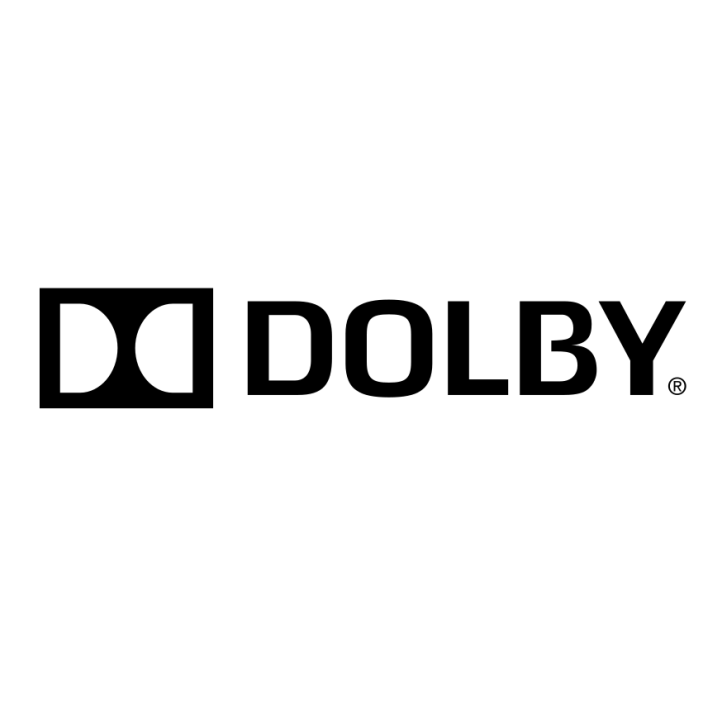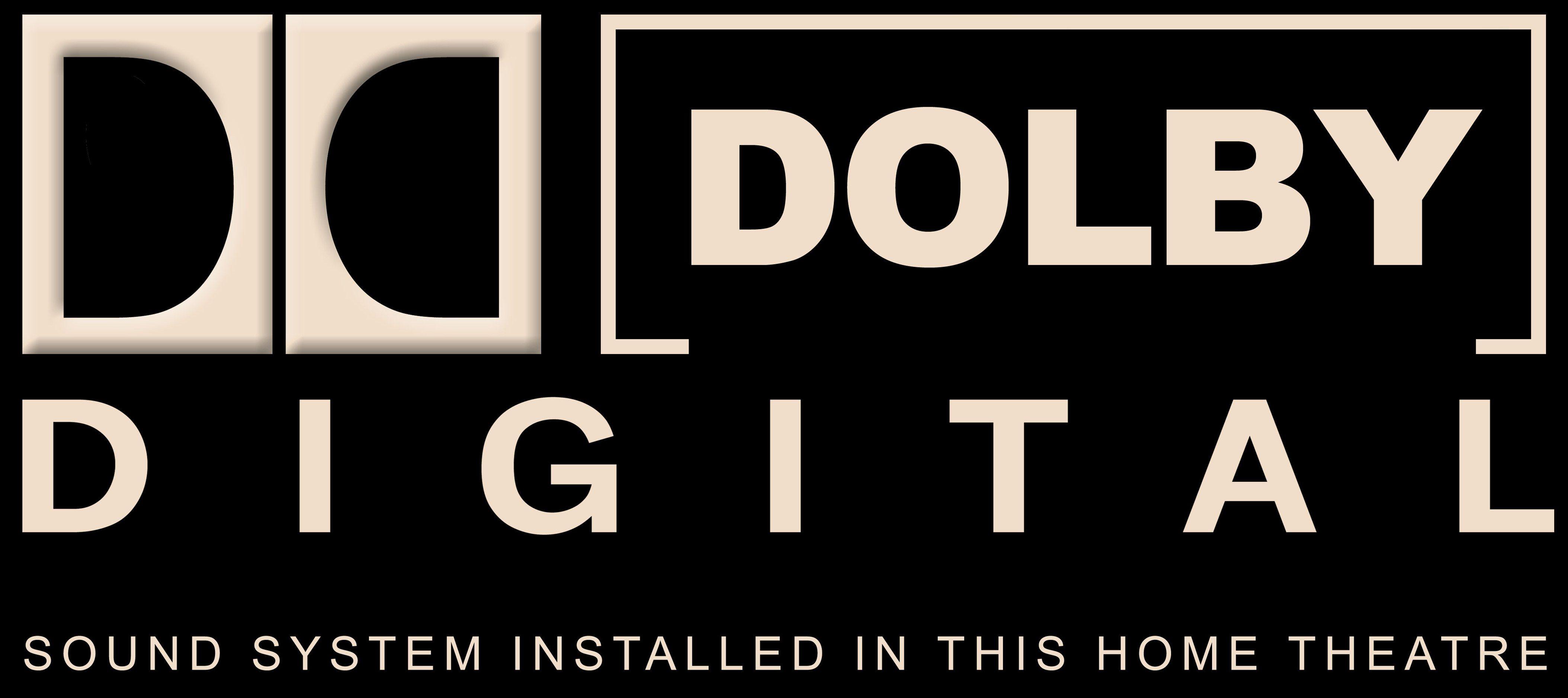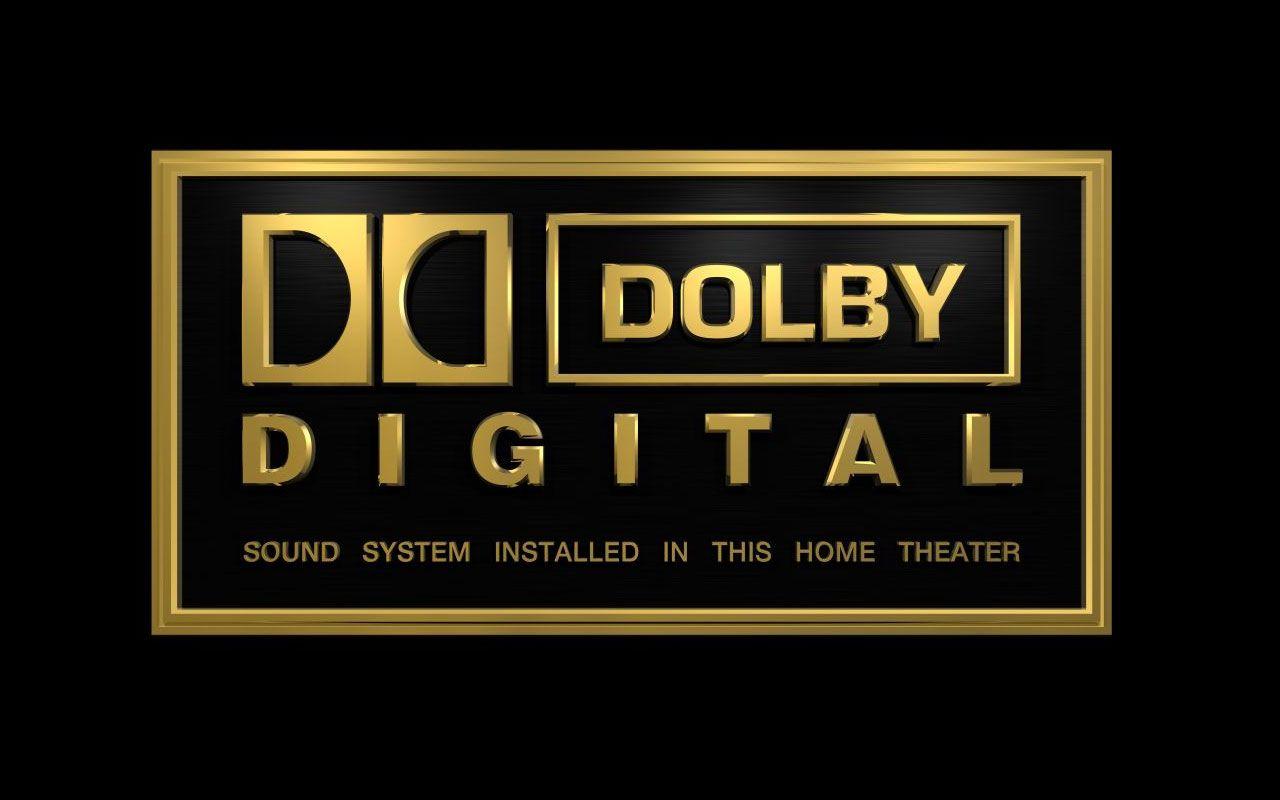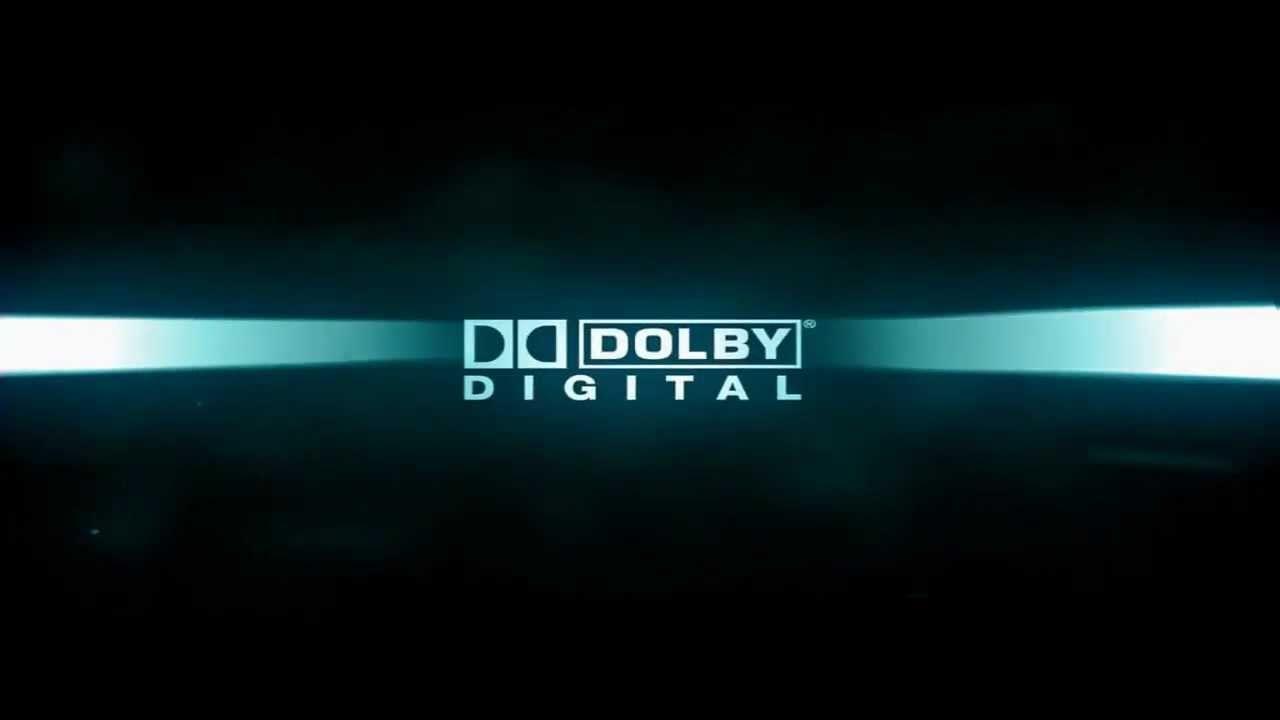
What Is The Dolby Digital Font . Dolby labs is a global leader in audio and video technologies. In 2007, the double d got. How could sansation possibly be used for the dolby logo? 124k subscribers in the identifythisfont community. Show us a sample and we'll try to find the font. The monochrome color palette emphasizes style. Visualization symbolically reflecting the imprinting of text on perforated film represents the dolby sound system. The closest font we can find for the dolby logo is gustan medium. Designed by lux typographic, gustan is an orderly type family for a wide range. A subreddit for identifying fonts: The double d logo has been used by the company since its formation in 1965, with one major change being made in 2020.
In 2007, the double d got. The double d logo has been used by the company since its formation in 1965, with one major change being made in 2020. Show us a sample and we'll try to find the font. The monochrome color palette emphasizes style. Visualization symbolically reflecting the imprinting of text on perforated film represents the dolby sound system. Designed by lux typographic, gustan is an orderly type family for a wide range. The closest font we can find for the dolby logo is gustan medium. A subreddit for identifying fonts: 124k subscribers in the identifythisfont community. How could sansation possibly be used for the dolby logo?
What Is The Dolby Digital Font The double d logo has been used by the company since its formation in 1965, with one major change being made in 2020. Visualization symbolically reflecting the imprinting of text on perforated film represents the dolby sound system. The double d logo has been used by the company since its formation in 1965, with one major change being made in 2020. The monochrome color palette emphasizes style. Dolby labs is a global leader in audio and video technologies. How could sansation possibly be used for the dolby logo? The closest font we can find for the dolby logo is gustan medium. 124k subscribers in the identifythisfont community. Show us a sample and we'll try to find the font. In 2007, the double d got. Designed by lux typographic, gustan is an orderly type family for a wide range. A subreddit for identifying fonts:
Dolby Golden logo Brand and letters Digital Golden icon logo Stock What Is The Dolby Digital Font In 2007, the double d got. Dolby labs is a global leader in audio and video technologies. The double d logo has been used by the company since its formation in 1965, with one major change being made in 2020. The closest font we can find for the dolby logo is gustan medium. The monochrome color palette emphasizes style. Designed. What Is The Dolby Digital Font.
What is dolby digital xchangenimfa What Is The Dolby Digital Font Dolby labs is a global leader in audio and video technologies. Show us a sample and we'll try to find the font. How could sansation possibly be used for the dolby logo? In 2007, the double d got. Designed by lux typographic, gustan is an orderly type family for a wide range. The double d logo has been used by. What Is The Dolby Digital Font.
Dolby Digital Logo and sign, new logo meaning and history, PNG, SVG What Is The Dolby Digital Font The double d logo has been used by the company since its formation in 1965, with one major change being made in 2020. 124k subscribers in the identifythisfont community. How could sansation possibly be used for the dolby logo? Visualization symbolically reflecting the imprinting of text on perforated film represents the dolby sound system. In 2007, the double d got.. What Is The Dolby Digital Font.
Dolby Digital Logo, symbol, meaning, history, PNG, brand What Is The Dolby Digital Font Dolby labs is a global leader in audio and video technologies. Designed by lux typographic, gustan is an orderly type family for a wide range. How could sansation possibly be used for the dolby logo? 124k subscribers in the identifythisfont community. Visualization symbolically reflecting the imprinting of text on perforated film represents the dolby sound system. In 2007, the double. What Is The Dolby Digital Font.
Dolby Digital Logo History (1992Present) [Ep 47] YouTube What Is The Dolby Digital Font In 2007, the double d got. Dolby labs is a global leader in audio and video technologies. Show us a sample and we'll try to find the font. How could sansation possibly be used for the dolby logo? The monochrome color palette emphasizes style. 124k subscribers in the identifythisfont community. The closest font we can find for the dolby logo. What Is The Dolby Digital Font.
Dolby Digital Wallpapers Top Free Dolby Digital Backgrounds What Is The Dolby Digital Font Dolby labs is a global leader in audio and video technologies. The closest font we can find for the dolby logo is gustan medium. Show us a sample and we'll try to find the font. 124k subscribers in the identifythisfont community. Visualization symbolically reflecting the imprinting of text on perforated film represents the dolby sound system. How could sansation possibly. What Is The Dolby Digital Font.
The Dolby Font / Display What Is The Dolby Digital Font Designed by lux typographic, gustan is an orderly type family for a wide range. The monochrome color palette emphasizes style. Visualization symbolically reflecting the imprinting of text on perforated film represents the dolby sound system. How could sansation possibly be used for the dolby logo? Dolby labs is a global leader in audio and video technologies. 124k subscribers in the. What Is The Dolby Digital Font.
Dolby Digital Logo, symbol, meaning, history, PNG, brand What Is The Dolby Digital Font The closest font we can find for the dolby logo is gustan medium. The monochrome color palette emphasizes style. In 2007, the double d got. Designed by lux typographic, gustan is an orderly type family for a wide range. The double d logo has been used by the company since its formation in 1965, with one major change being made. What Is The Dolby Digital Font.